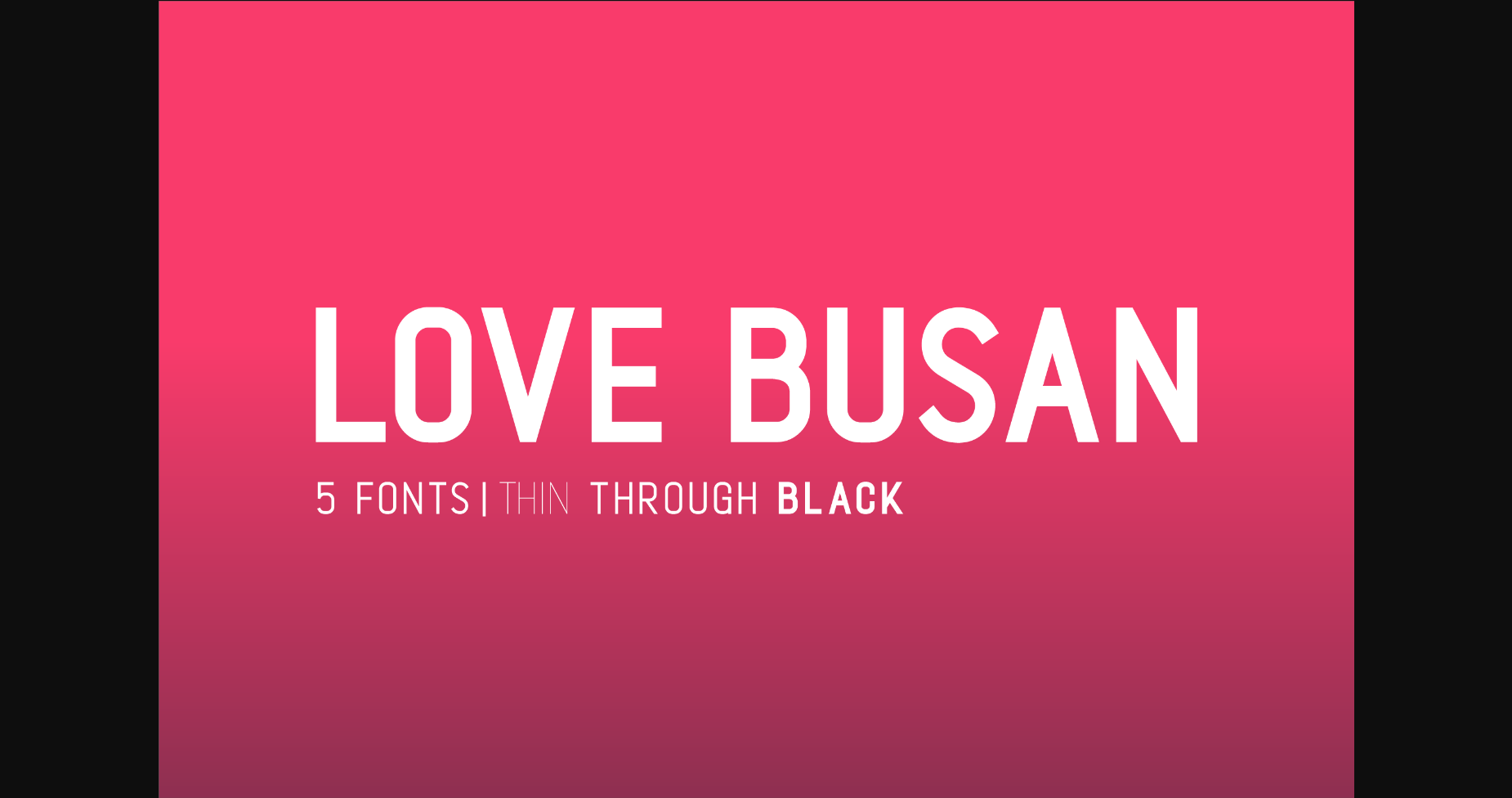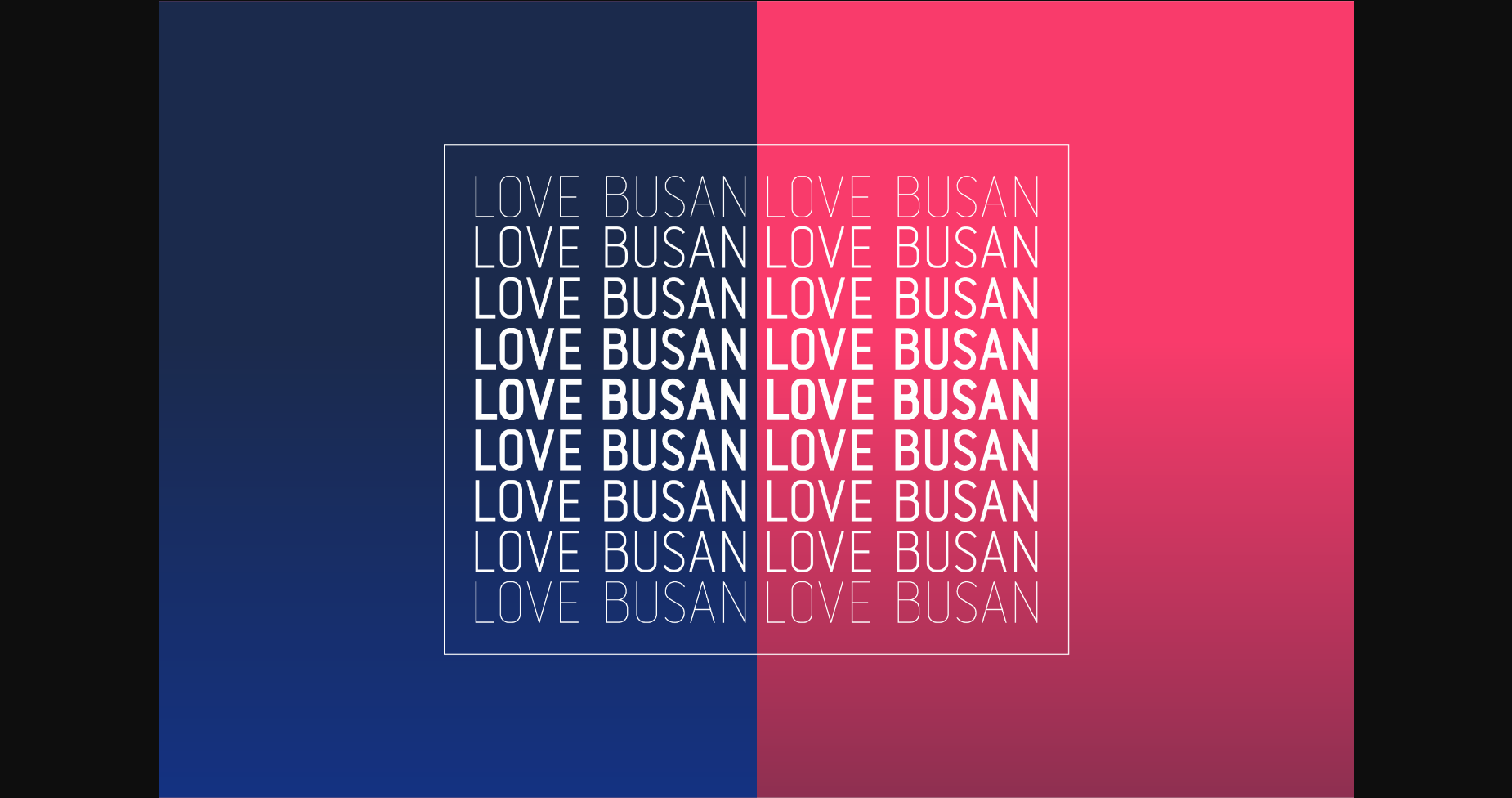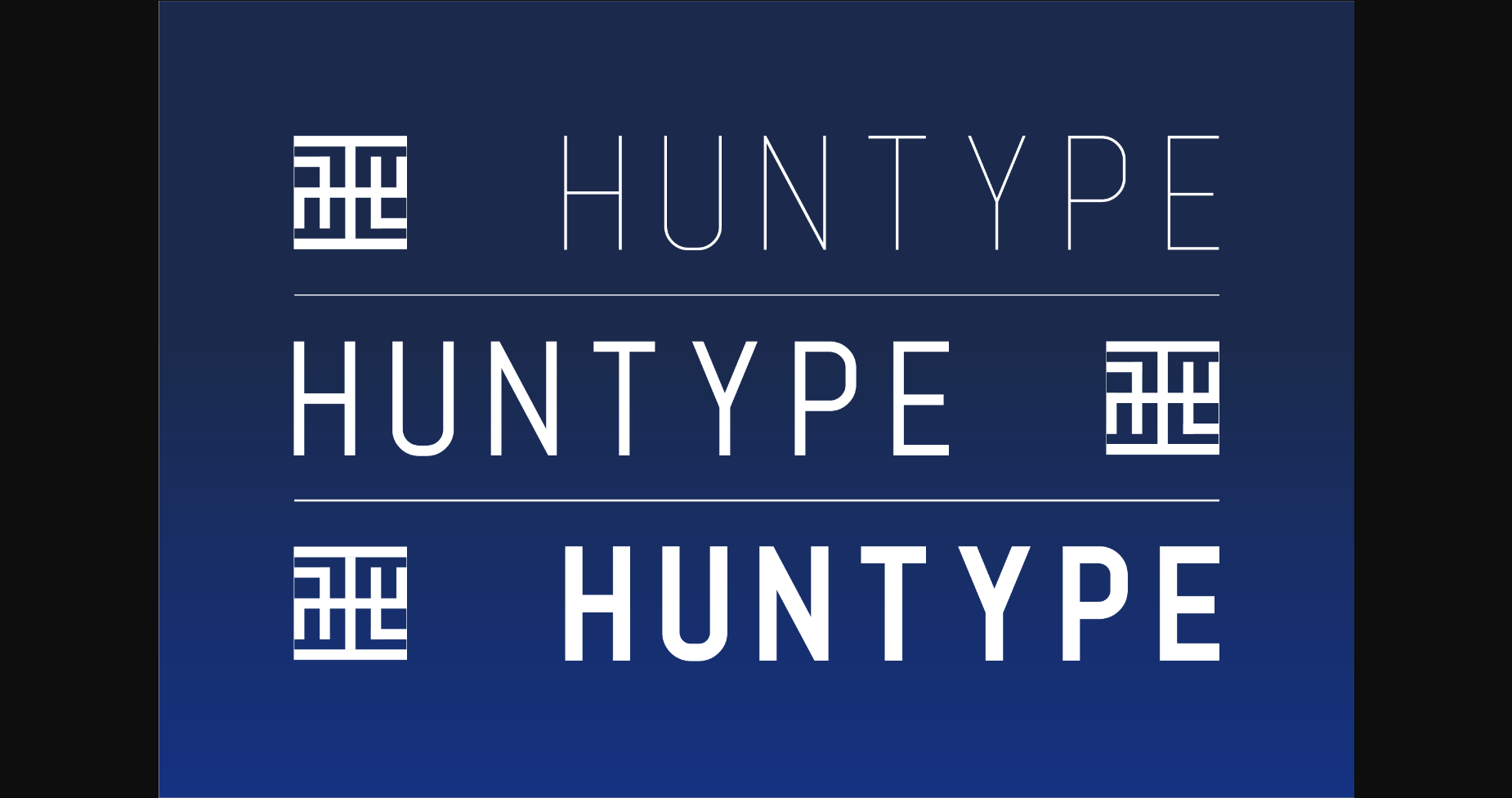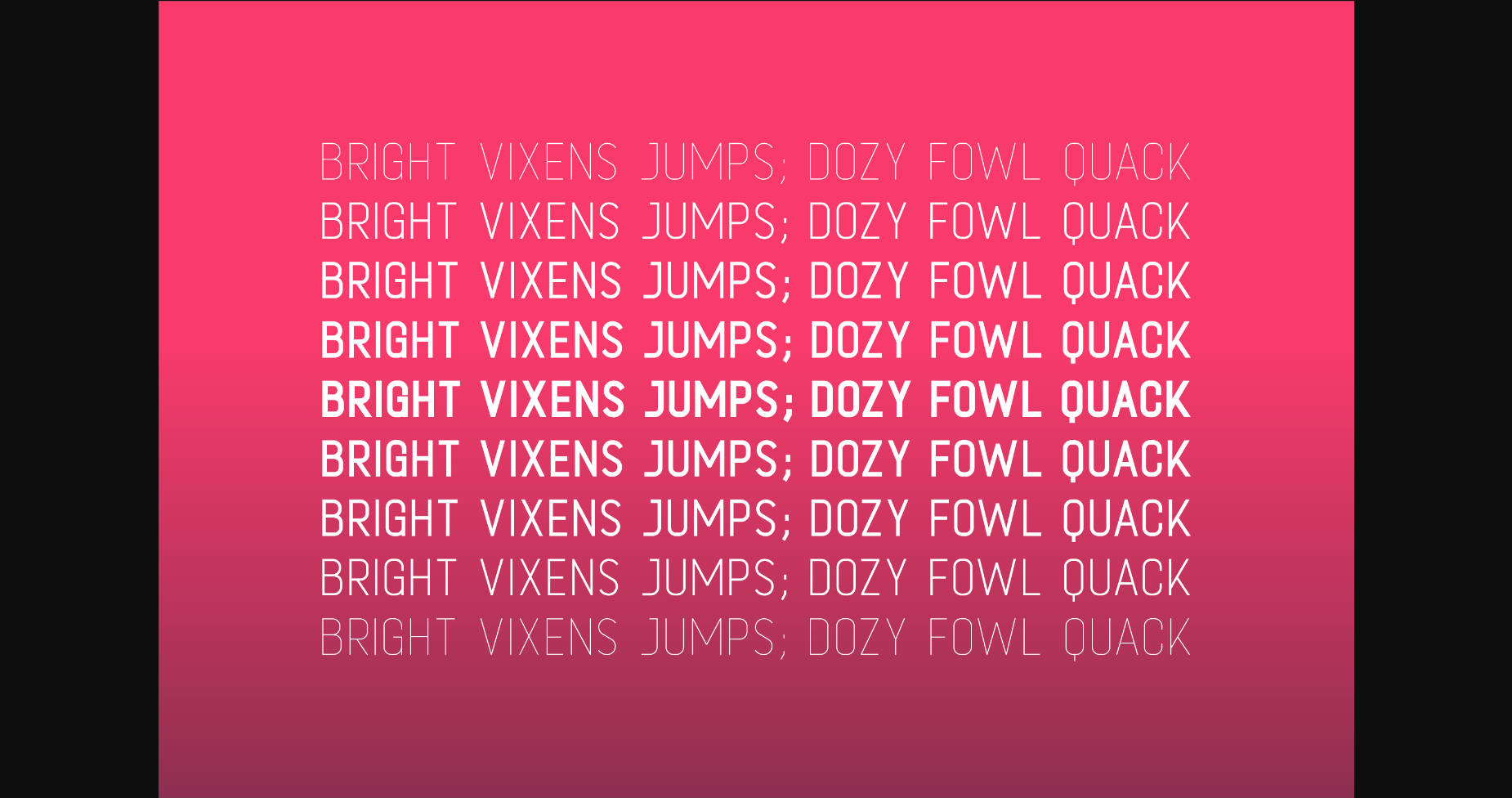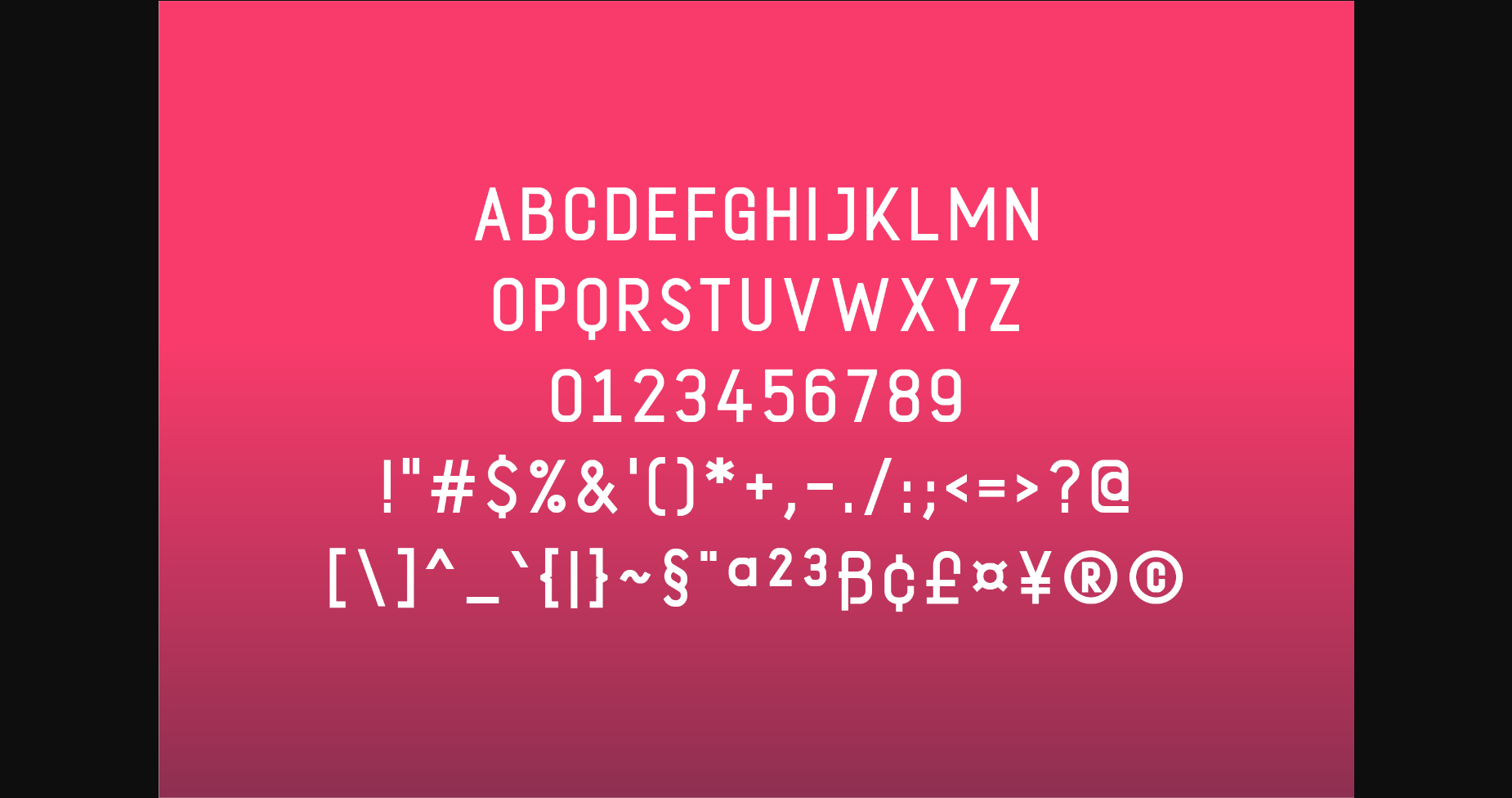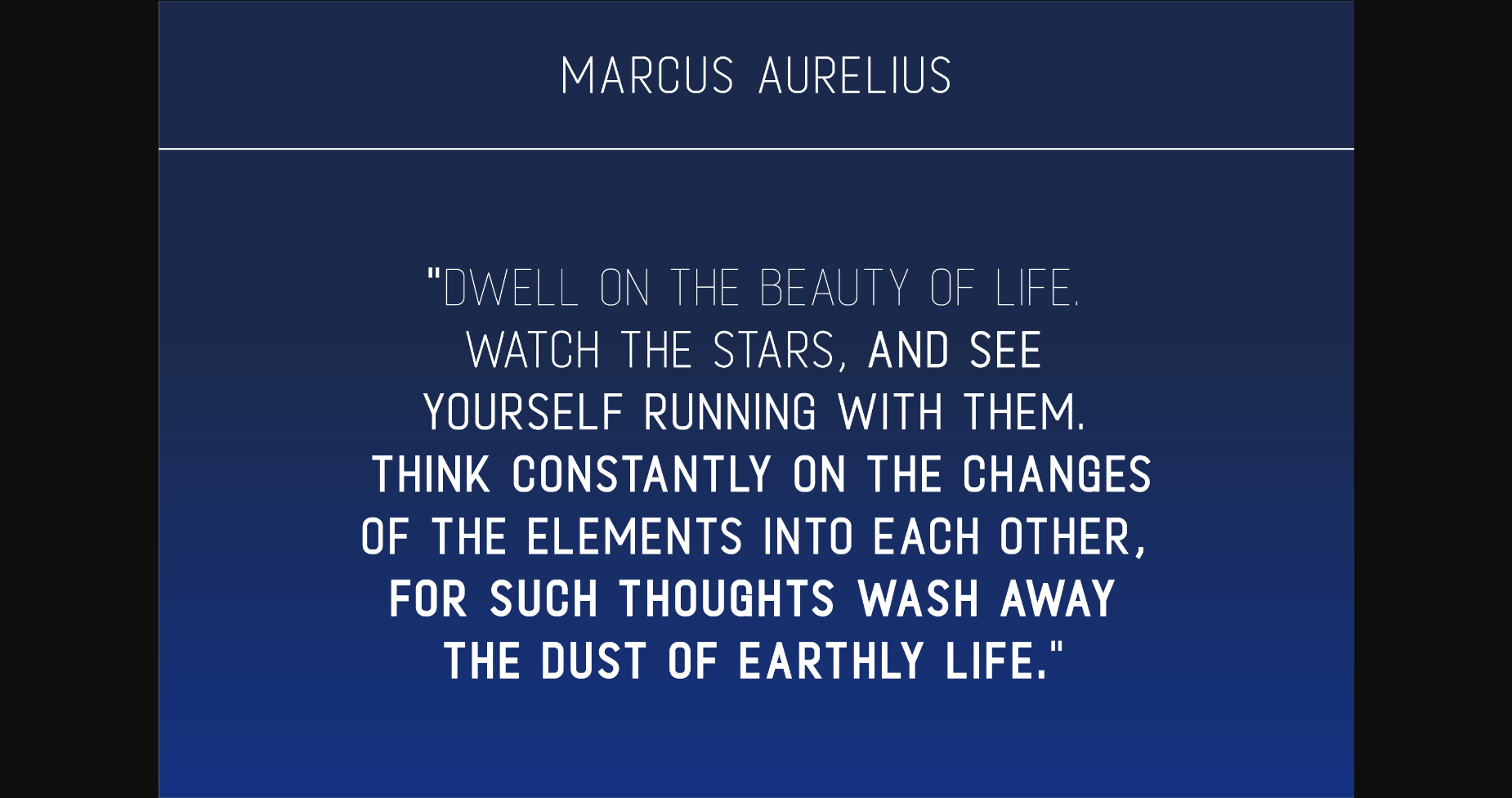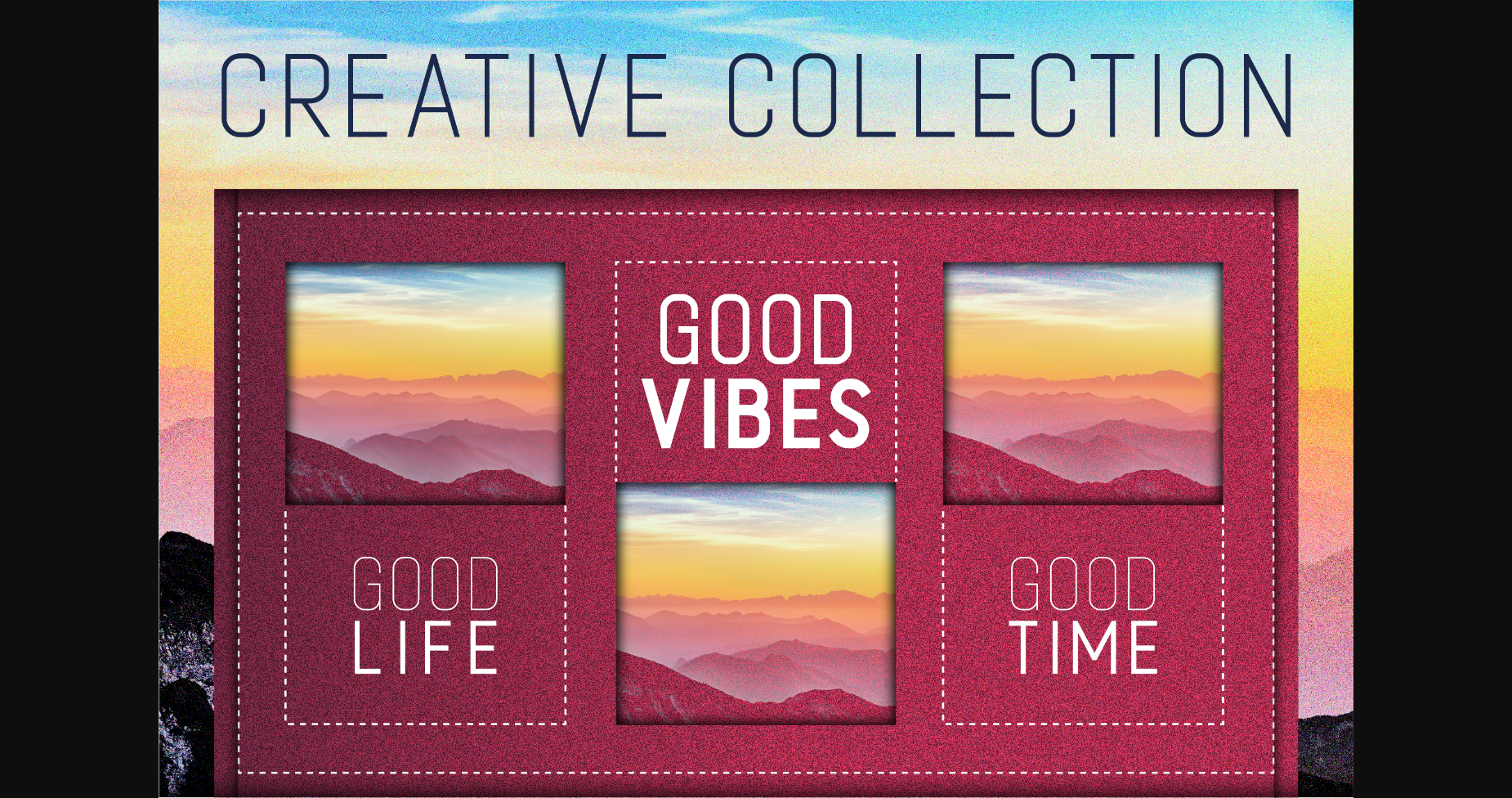
HomeSans Serif FontsLove Busan Font Sans Serif Fonts Love Busan Font FacebookXPinterestWhatsApp 1 of 9 ... Love Busan Font Poster 2... Love Busan Font Poster 3... Love Busan Font Poster 4... Love Busan Font Poster 5... Love Busan Font Poster 6... Love Busan Font Poster 7... Love Busan Font Poster 8... Love Busan Font Poster 9... About Love Busan Font With smooth and clean lines, and just a touch of contrast, Love Busan works beautifully for logos, branding, and web headings. DOWNLOAD NOW People also explored Rakesly Gemintang Font Magnolina Font Catchy Bellonia Font Mojito Font Oyuki’s Ghost Lily Font Hamburg Font Begins Font 395 0 TagsLove Busan Font Previous articleBrilliant FontNext articleJejushi Font LEAVE A REPLY Cancel reply Comment: Please enter your comment! Name:* Please enter your name here Email:* You have entered an incorrect email address! Please enter your email address here Website: Save my name, email, and website in this browser for the next time I comment. Personal Use Free Mandarins Personal Use Free Read more about this font Cherry Ai Personal Use Free Read more about this font Berry Personal Use Free Read more about this font BD TinyFont Personal Use Free Read more about this font BLOG Where to Buy American Fonts Online in 2024 Where to Buy American Fonts Online: The Ultimate Guide for 2024 Looking for the perfect American font to elevate your design projects? You're in the... How to Cut Any Font on Cricut: Convert a Font to SVG (Free) Free Fonts Risk: Why Free Fonts Can Be Dangerous for Designers 5 Fonts That Will Dominate Design Trends in 2026